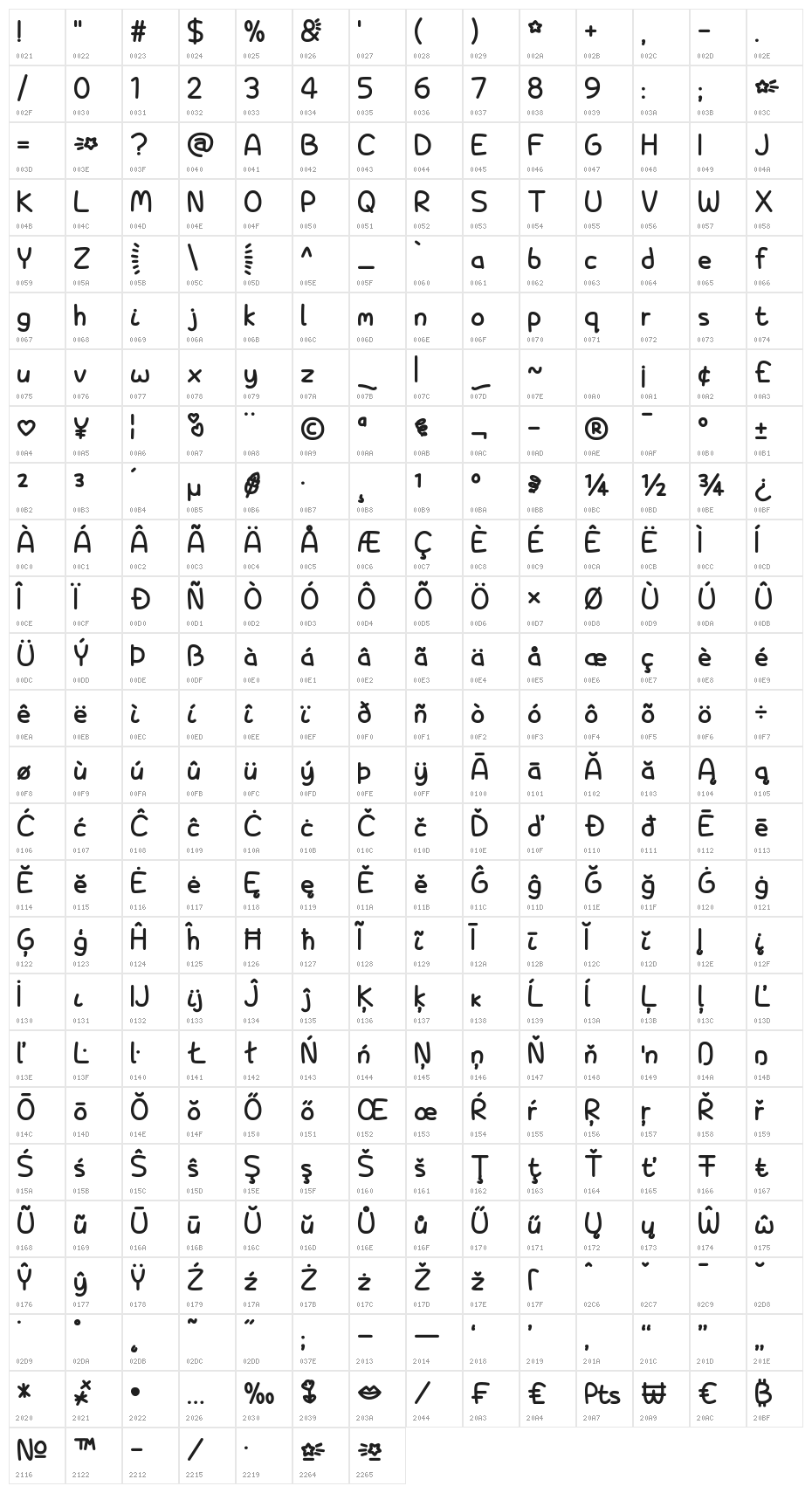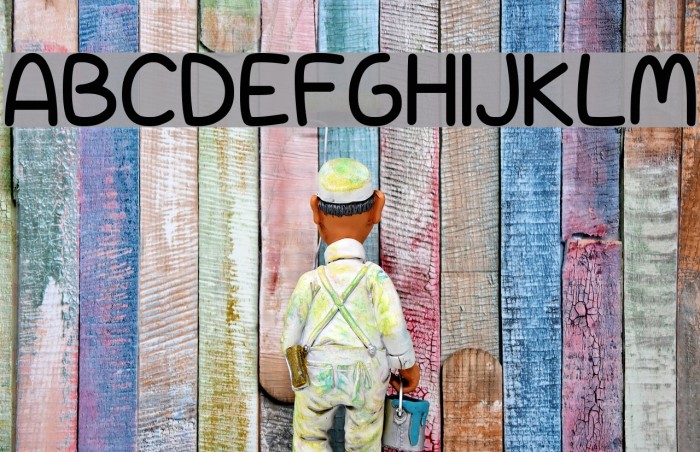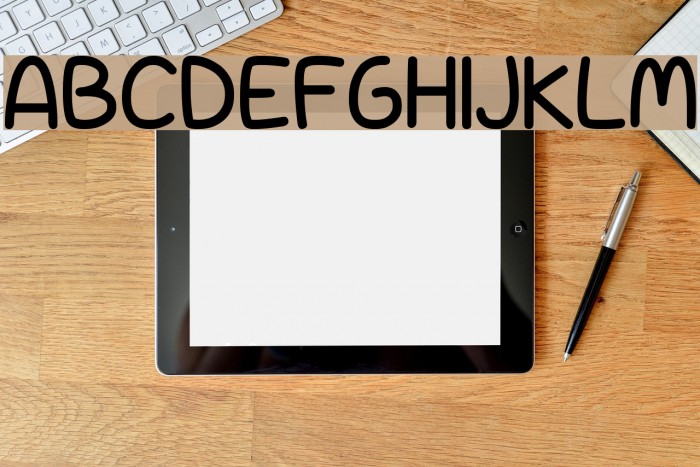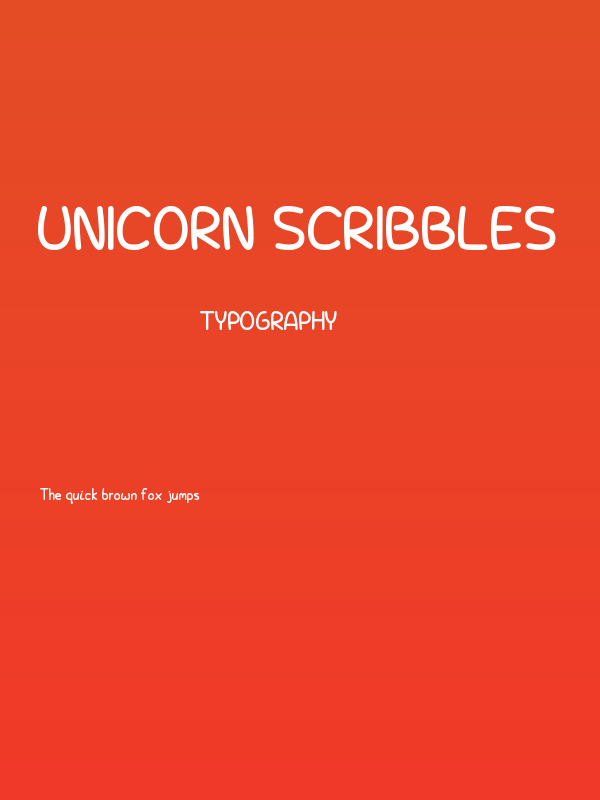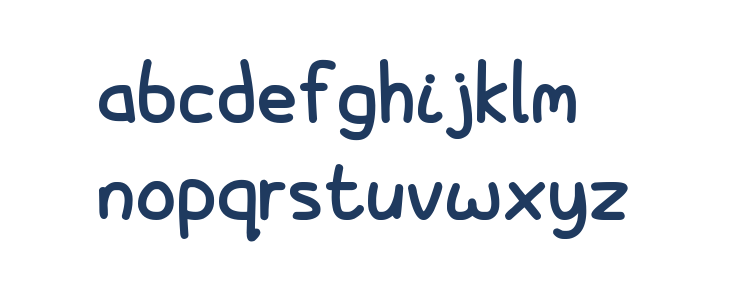
Unicorn Scribbles Font
This playful and whimsical font features rounded, smooth edges and a hand-drawn aesthetic that evokes a sense of fun and creativity. The characters are evenly spaced, with a consistent stroke width that gives the font a cohesive look. Its informal style is reminiscent of doodles or casual handwriting, making it ideal for projects that require a lighthearted and approachable feel. The font includes a full set of uppercase and lowercase letters, numbers, and a variety of special characters, ensuring versatility in its application. Its simplicity and charm make it suitable for children's books, playful branding, or any design that aims to convey a sense of joy and imagination.
Overall StylePlayful
Use CaseHeadlines, Logos, Informal text
Proposed ProjectsChildren's books, playful branding, greeting cards, casual invitations, and creative posters.